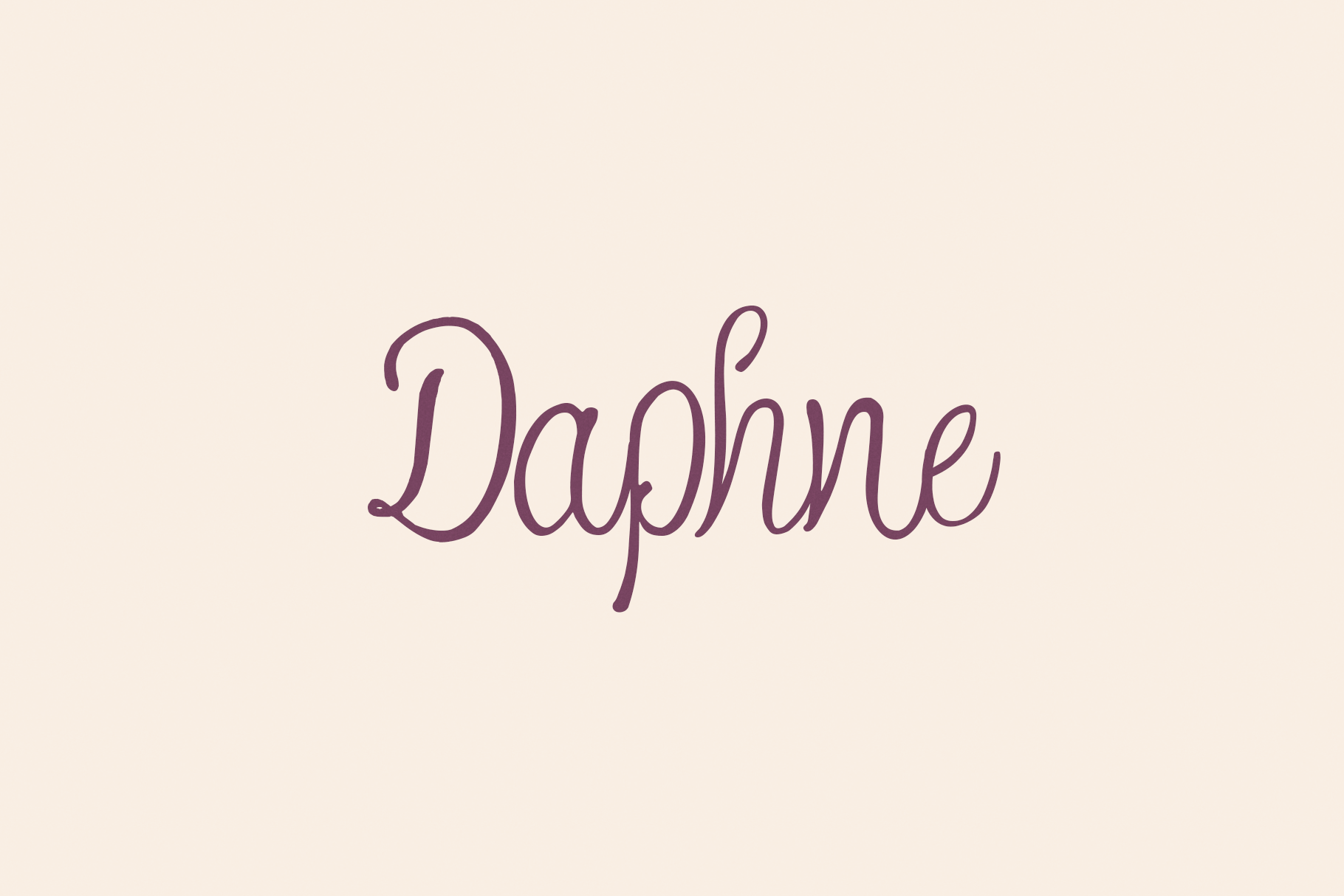
Daphne Font
Daphne is a feminine and cheeky handwritten script, fits perfect for Logos, Advertising, Headlines and Wedding Invitations
- Upper & Lowercase Letters
- 323 Glyphs
- 93 Ligatures